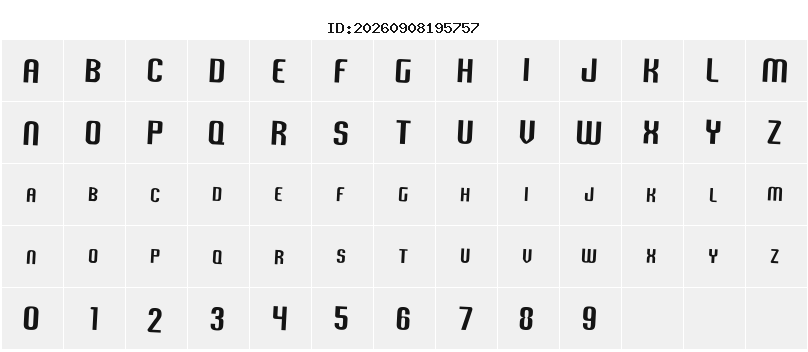
Vixene.ttf is a modern, elegant sans-serif font designed for ultimate readability and visual harmony. Perfect for branding, headlines, web design, and print materials.